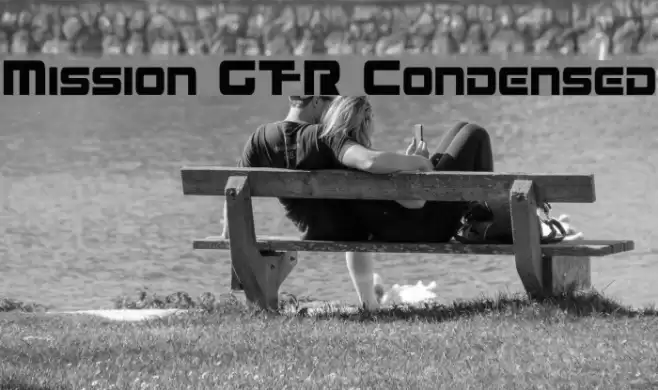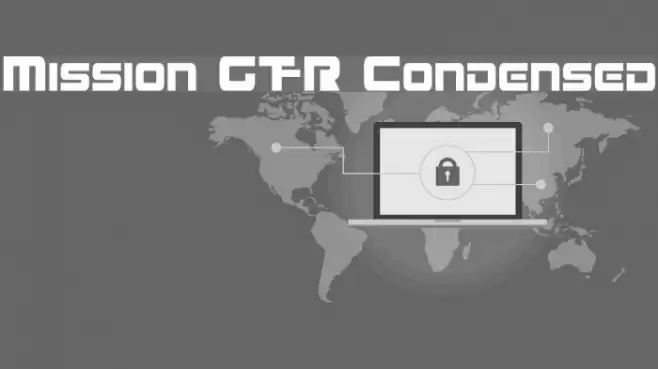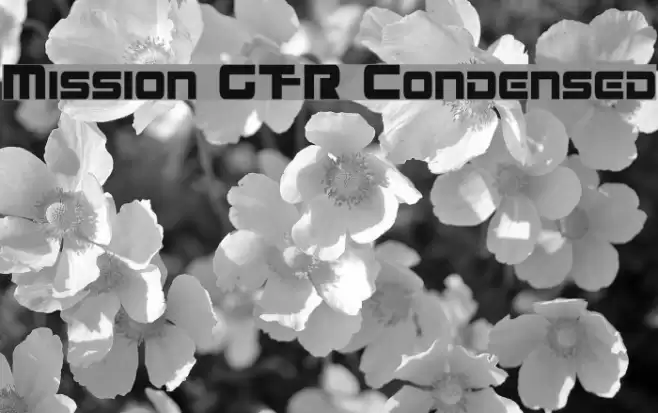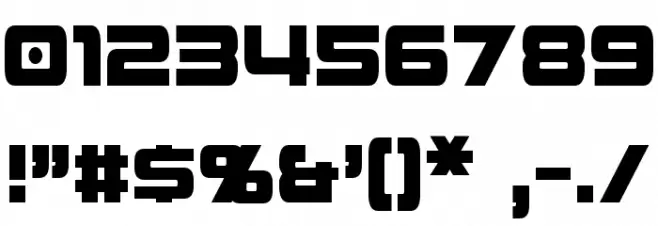
Mission GT-R Condensed Font
Mission GT-R Condensed Description
This font features a bold, geometric design with a distinctly modern and futuristic feel. The characters are constructed with sharp angles and straight lines, creating a sense of precision and strength. The condensed width of the letters allows for efficient use of space, making it ideal for headlines and impactful text. The uniform stroke weight across all characters contributes to a cohesive and streamlined appearance. The font's high contrast and clean lines make it highly legible, even at smaller sizes. Its unique style is suitable for projects that require a contemporary and dynamic aesthetic.
A bold, geometric, and modern font with a condensed width and high legibility from Uncategorized fonts.
- Proposed Projects: Ideal for use in technology branding, sports team logos, automotive design, and modern advertising campaigns.